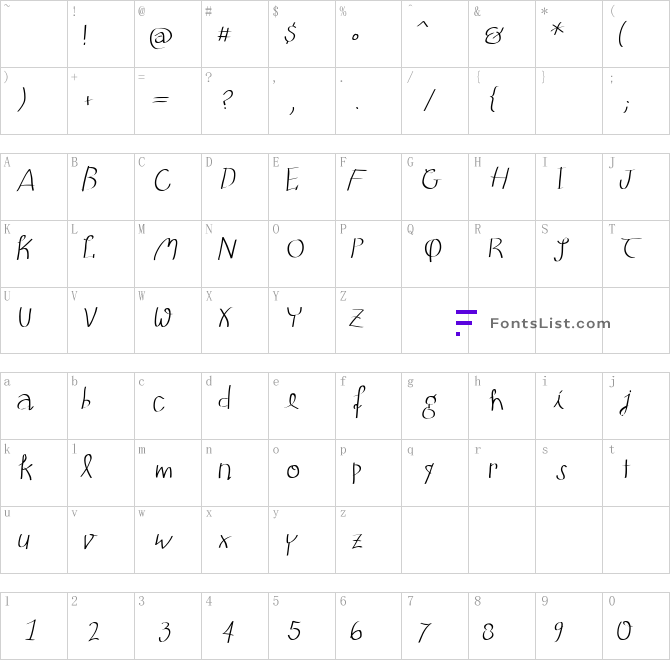
- Font Name:Batmania
Batmania.ttf is a very beautiful artistic font, Batmania.ttf is widely used in the design and printing of various books and pictures,Batmania.ttf has a strong visual impact,Batmania.ttf is a commonly used font in newspapers, magazines and books, and is used in posters, e-commerce Poster design, store design, logo design, font design and other fields.Batmania.